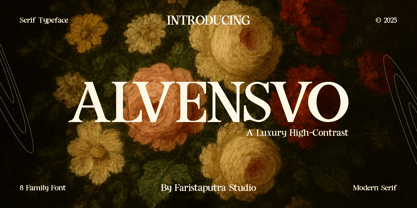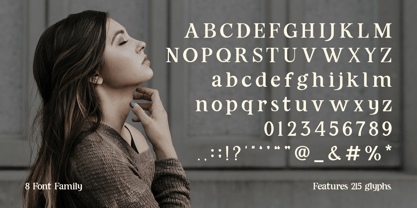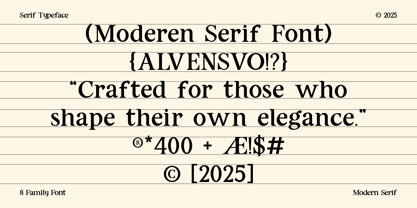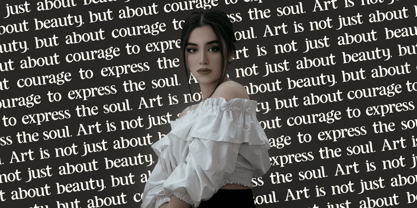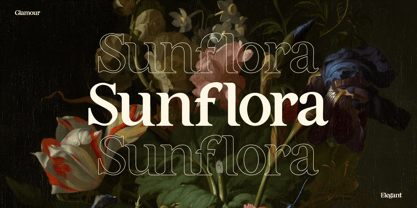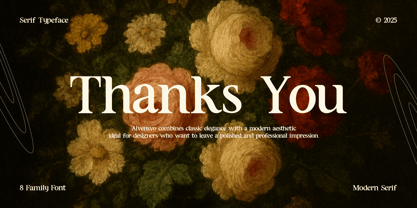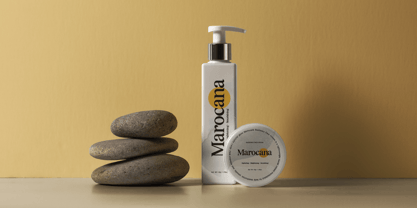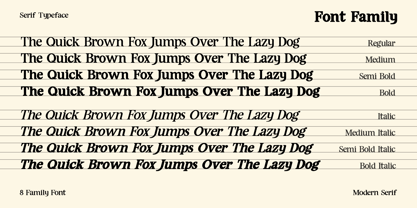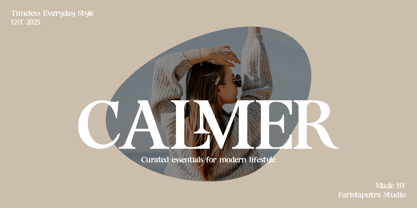
FA Alvensvo
by Faristaputra
The FA Alvensvo Font Family was designed by Frederik Aristaputra and published by Faristaputra. FA Alvensvo contains 8 styles and family package options. More about this family
Alvensvo is a modern high-contrast serif typeface that brings a luxurious and elegant touch to any project. Featuring sharp transitions, refined shapes, and timeless serif details, it is perfect for branding, editorial headlines, packaging, wedding designs, and fashion logos. This font family offers 8 versatile styles, ensuring strong visual impact while maintaining high readability. Features: Modern serif, 8 style font family, Elegant editorial aesthetic, Ideal for logos, titles, and branding, Multilingual support with refined kerning
Designers: Frederik Aristaputra
Foundry: Faristaputra